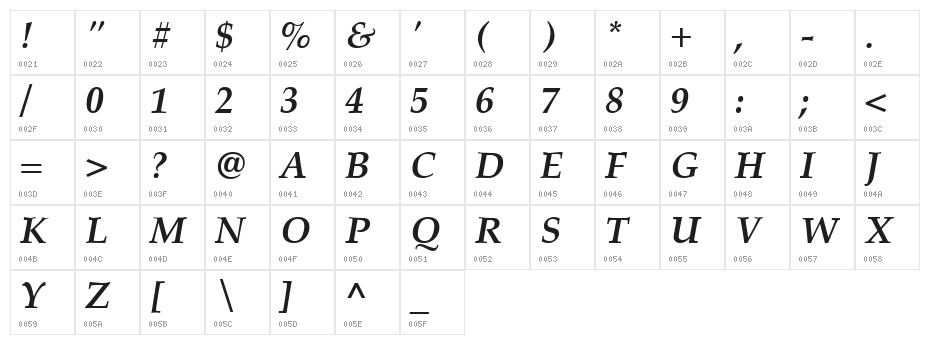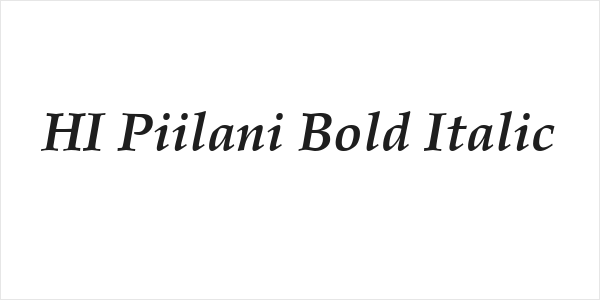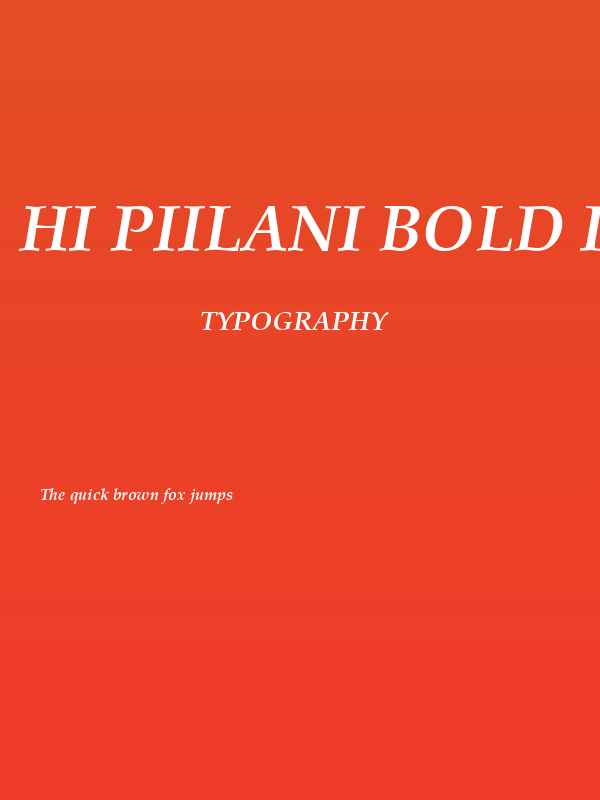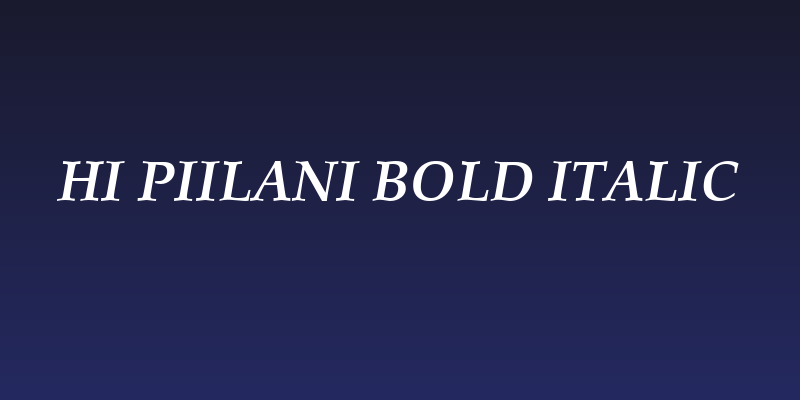
HI Piilani Bold Italic Font
HI Piilani Bold Italic Description
This font exhibits a bold and italicized style, characterized by its strong and dynamic presence. The letters are slightly slanted, giving a sense of movement and elegance. The strokes are thick, providing a bold appearance, while the serifs add a touch of classic sophistication. The overall design is clean and legible, making it suitable for various applications. The numbers and special characters maintain the same bold and italicized style, ensuring consistency throughout the typeface.
| Proposed Projects | Ideal for branding, headlines, posters, and any design requiring a bold and elegant touch. |